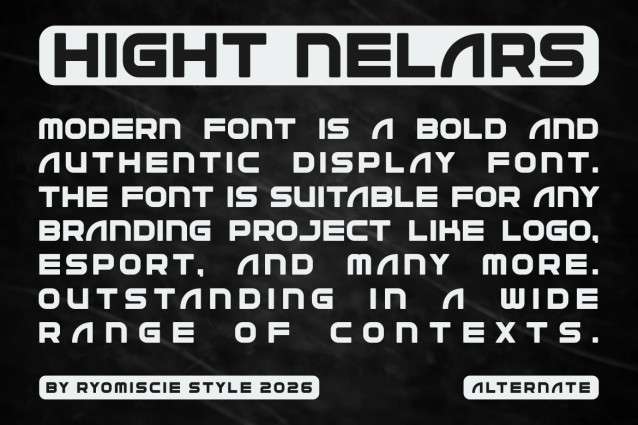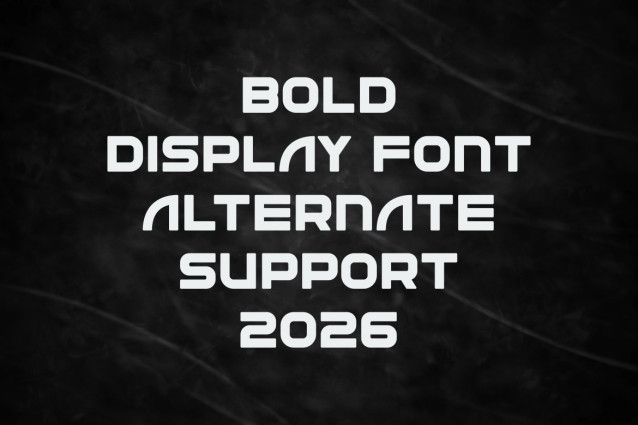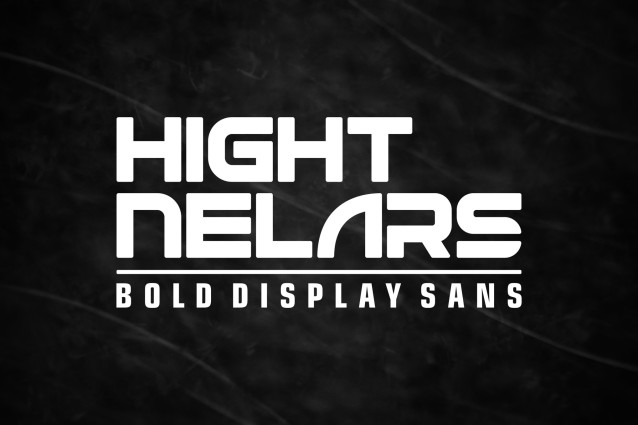
Hight Nelars Font
Hight Nelars Font – Bold Display Sans is a bold and authentic display font. The font is suitable for all branding projects such as logos, esports, etc. It looks exceptional in a wide range of contexts.